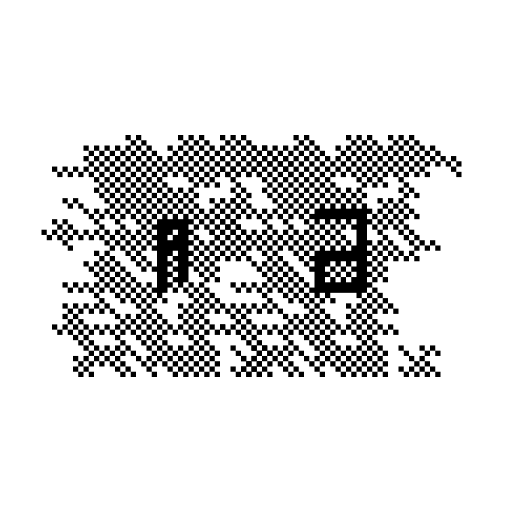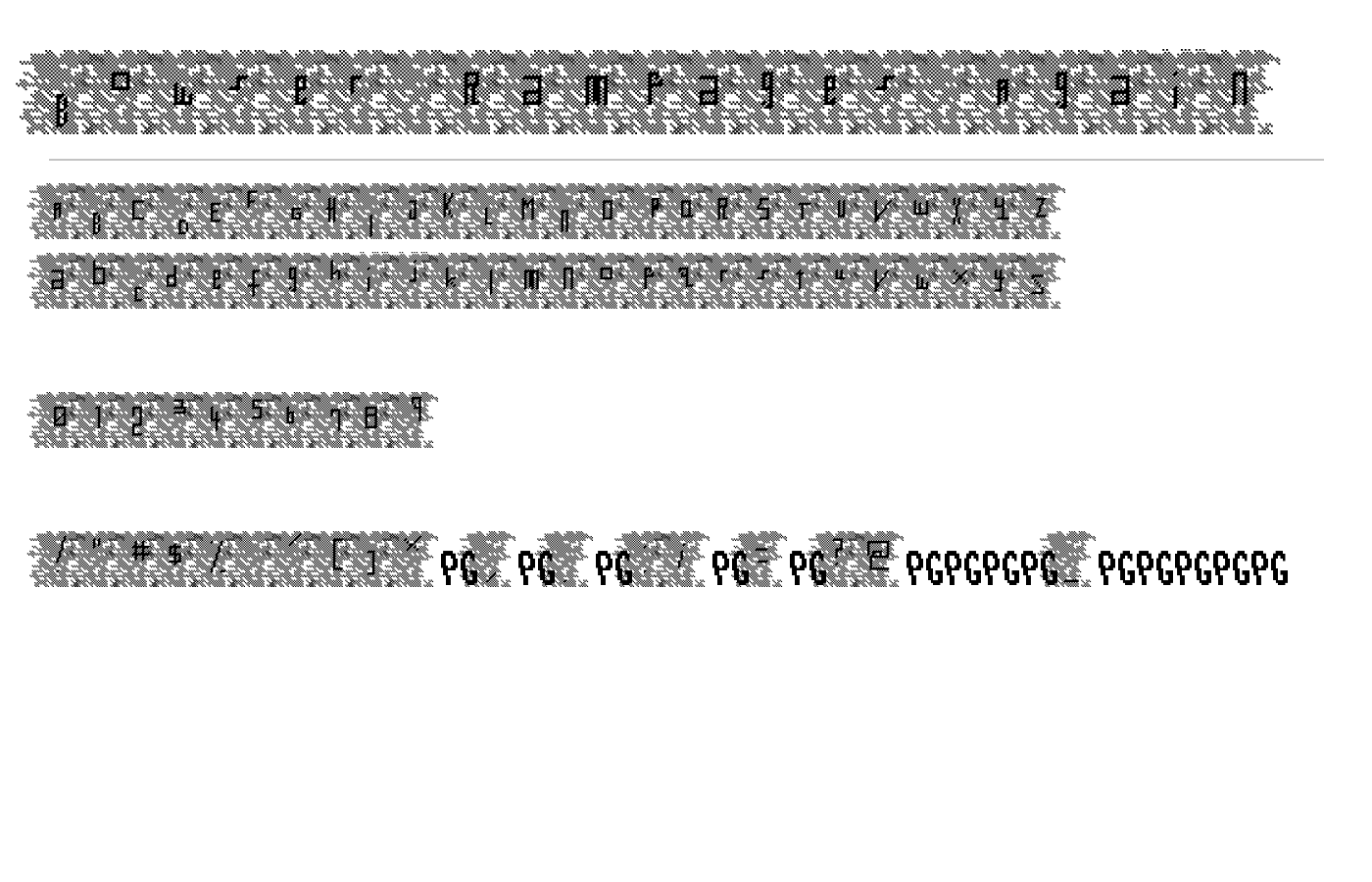
Bowser Rampages Again is a bold, condensed sans serif font with a pixelated, retro videogame style that evokes a sense of nostalgia and playfulness. Its tall, narrow letterforms with uniform stroke width and blocky edges make it ideal for eye-catching headlines or branding in gaming, tech, or digital-themed projects. This font works best in contexts where a strong, vintage-inspired character is desired, especially for logos, posters, or websites looking to capture a fun and energetic vibe.
Bowser Rampages Again Font
About Bowser Rampages Again Font